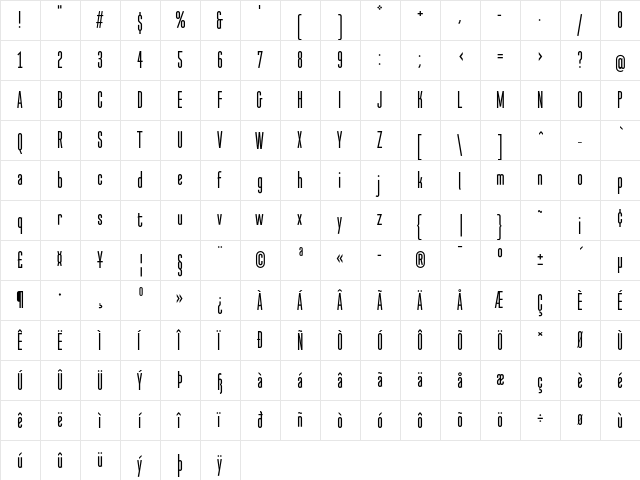
Normalstock OT Regular
| Foundry | Frantisek Storm |
| Designer | Frantisek Storm |
Design Context for Normalstock OT Typeface
Normalstock OT is a composed and adaptable typeface that performs quietly and consistently across a wide range of design contexts.